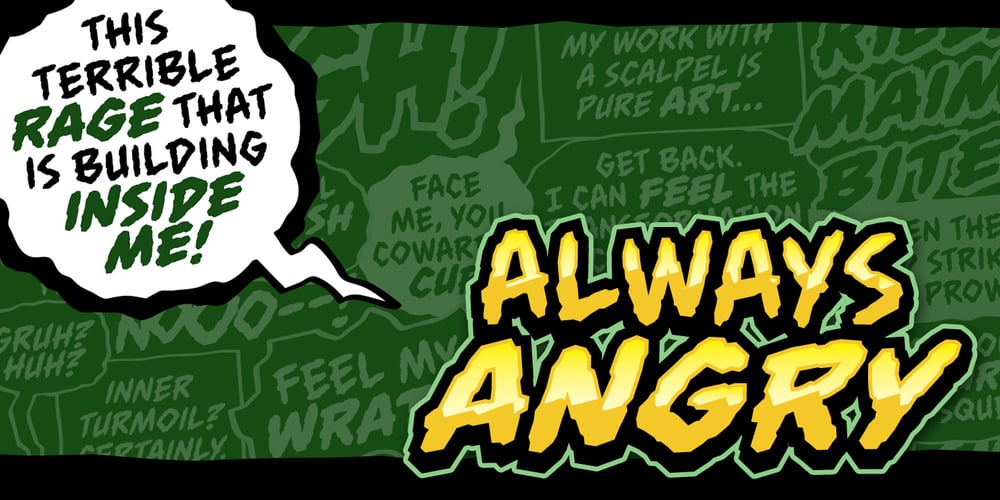
Always Angry BB Font Family was designed by Nate Piekos and published by Blambot. Always Angry BB contains 8 styles and family package options. Always Angry BB is a comic book font for big, brutish monsters. It’s distressed, but still perfectly legible when your monster has a lot of dialogue! The family comes with Regular, Italic, Bold, and BoldItalic, with a large compliment of European characters. The opentype version contains autoligatures to swap out identical, adjacent letters for a more hand-lettered feel.